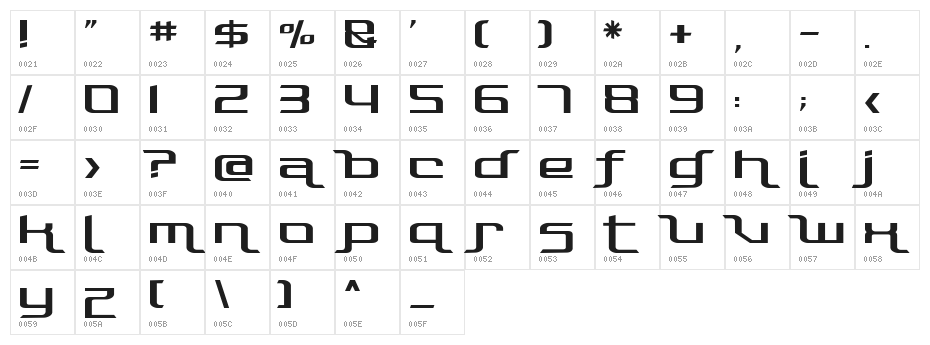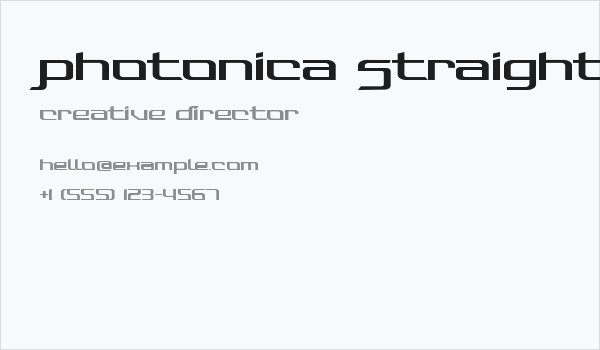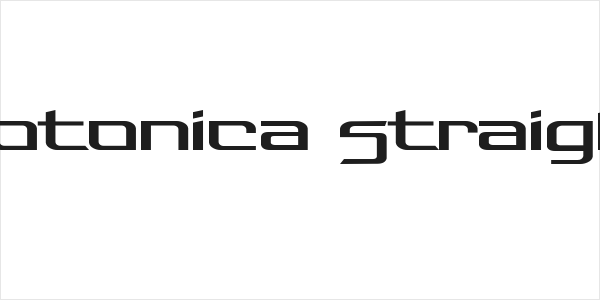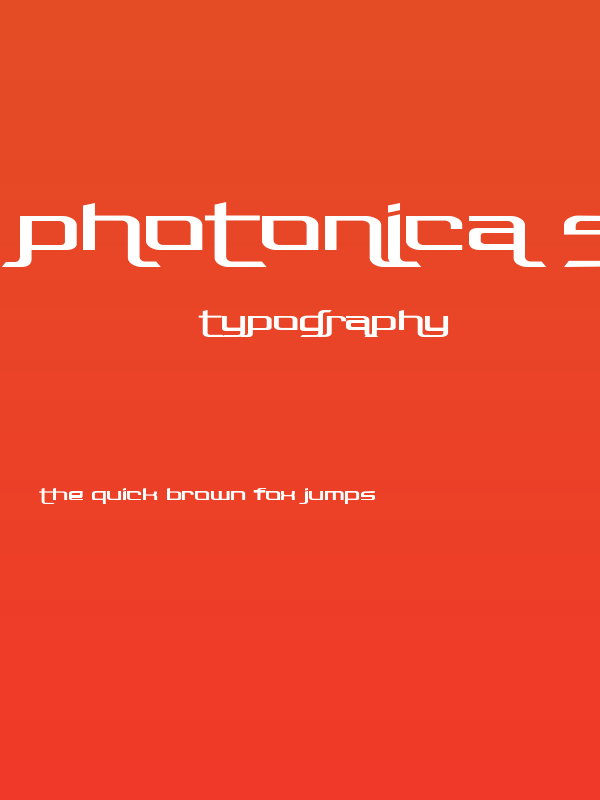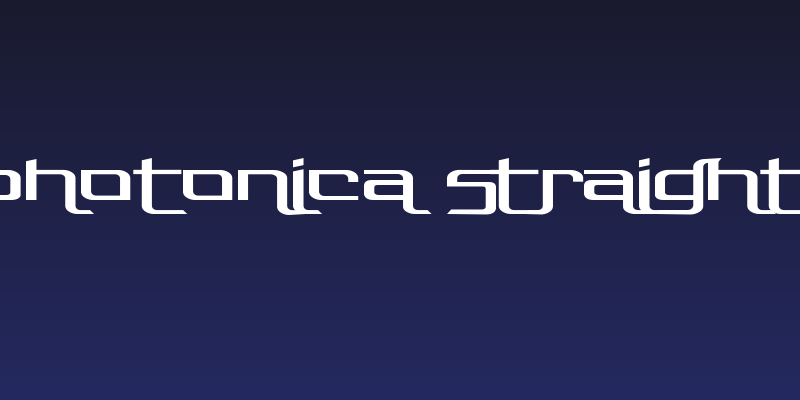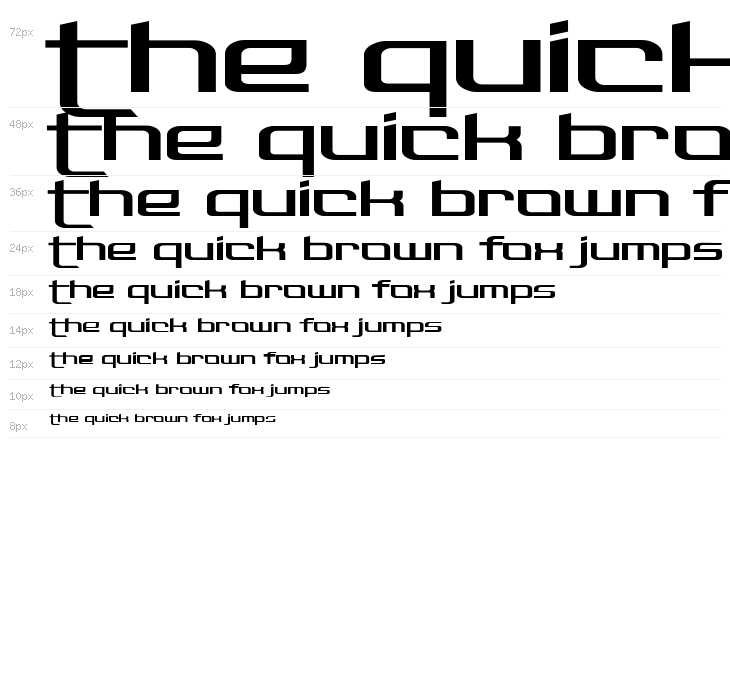
Photonica Straight Font
Photonica Straight Description
This font features a futuristic and geometric design with sharp, angular lines and a sleek, modern aesthetic. The characters are distinct with a consistent stroke width, giving it a uniform appearance. The uppercase and lowercase letters share a similar structure, enhancing the font's cohesive look. The numerals are bold and easily readable, while the special characters maintain the font's unique style. Its design is reminiscent of digital or sci-fi themes, making it suitable for projects that require a modern and technological feel.
| Use Case | Logos, Headlines, Digital interfaces |
| Proposed Projects | Ideal for tech-related branding, sci-fi book covers, digital interfaces, and modern advertising campaigns. |